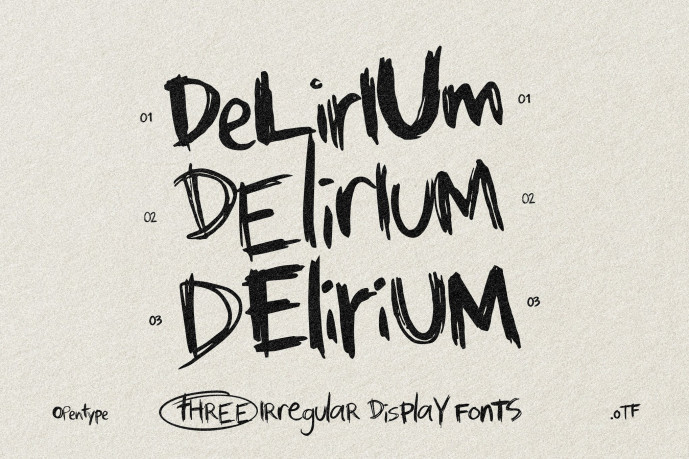
Delirium – Hand-Drawn Font
Delirium – Hand-Drawn Font. Inject raw, unpolished energy into your designs with the Delirium Fonts. Delirium provides that authentic, “scratched-into-a-desk” and messy aesthetic. This isn’t your standard, clean typography—this is a collection of three distinct, irregular display fonts designed to look frantically hand-drawn. Perfect for projects that need to have a rebellious hand-drawn ink vibe.